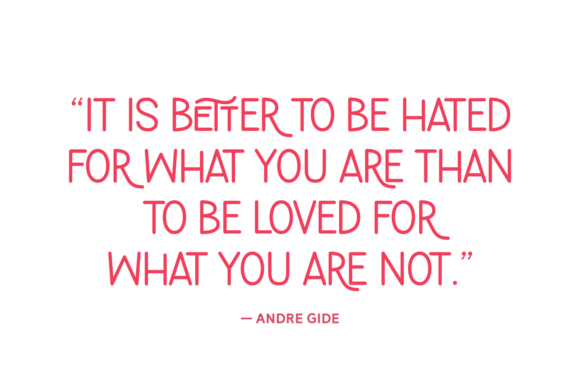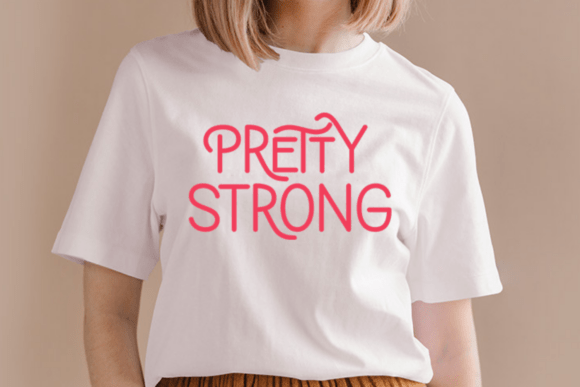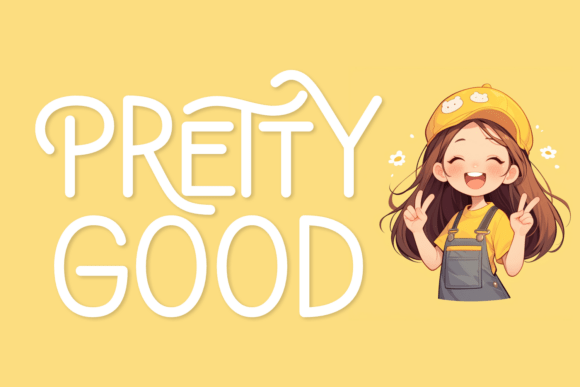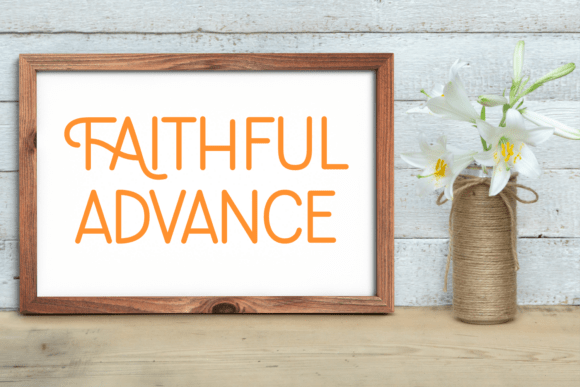
Introduction to Fairy Pretty Font
Experience the versatility of “Fairy Pretty”, a charming display font that exudes fun and festivity.
This enchanting creation is perfect for holiday-inspired projects, school assignments, children’s literature and birthday designs Its bouncy contours make it an exciting choice for teachers seeking to kindle creativity in their young students.
Key Features of Fairy Pretty Font